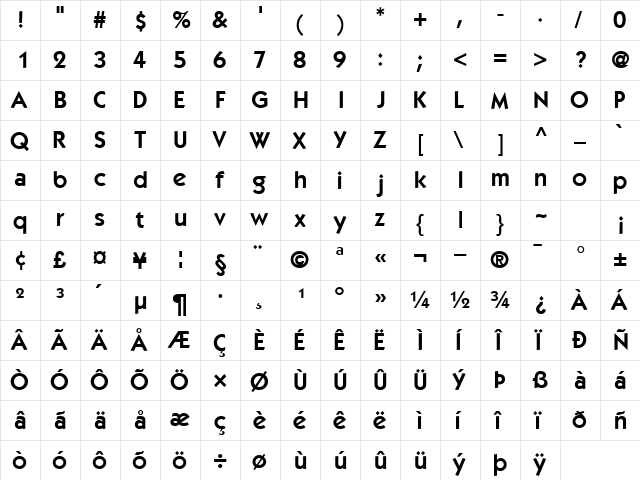
PerformaBookSSK SemiBold Font Preview
PerformaBookSSK SemiBold
Design Context for PerformaBookSSK Typeface
PerformaBookSSK is a composed and adaptable typeface that performs quietly and consistently across a wide range of design contexts. Its bold stroke weight gives it real presence on the page.